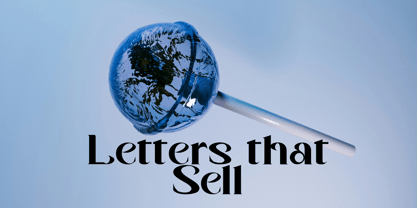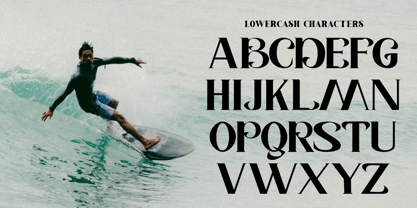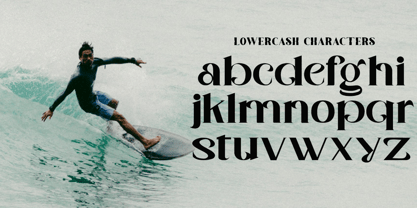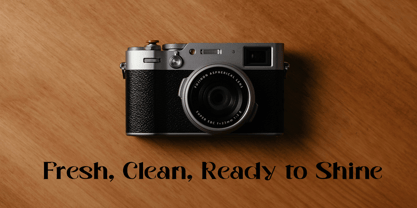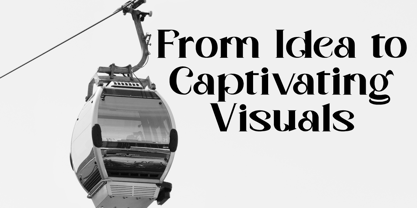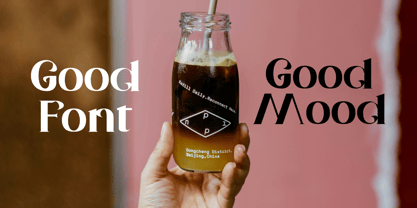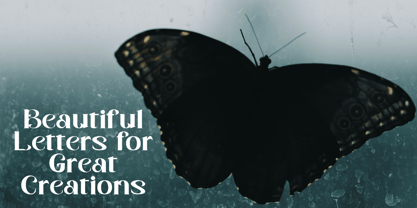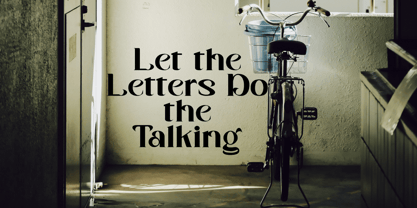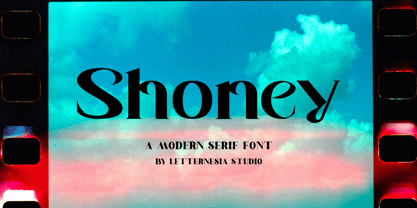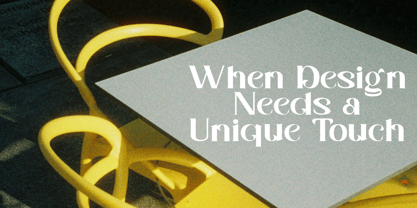
Shoney
by Letternesia studio
The Shoney Font Family was designed by Ta Siyo and published by Letternesia studio. Shoney contains 2 styles and family package options. More about this family
Shoney is a charming and versatile display font that blends playful curves with modern elegance. Its smooth strokes and friendly style make it perfect for eye-catching designs such as branding, logos, invitations, posters, packaging, and social media graphics. With its unique personality, Shoney adds warmth and creativity to any project, making your design stand out and unforgettable
Designers: Ta Siyo
Foundry: Letternesia studio